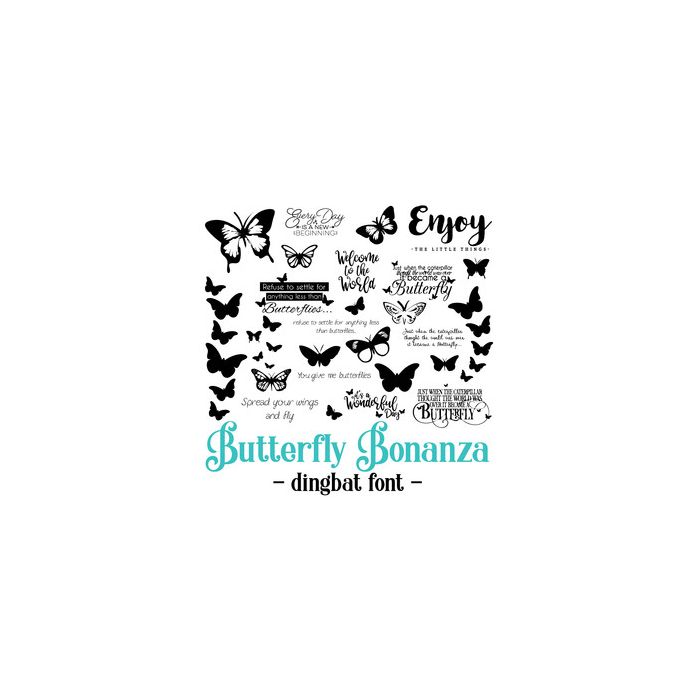
Butterfly Bonanza Dingbat Font. Includes 26 butterfly themed sentiments and coordinating butterfly embellishments, perfect for card making sentiments, inserts, scrapbooking, gifts and more!. All are assigned to an upper case letter starting with 'A' or can be accessed via glyphs. For more design ideas, coordinating designs & products and inspiration, please visit my blog http://www.sarahhurleyblog.com